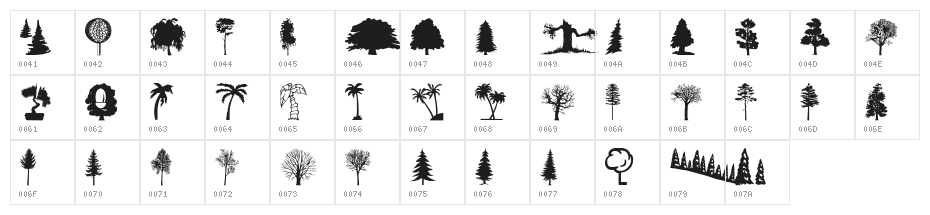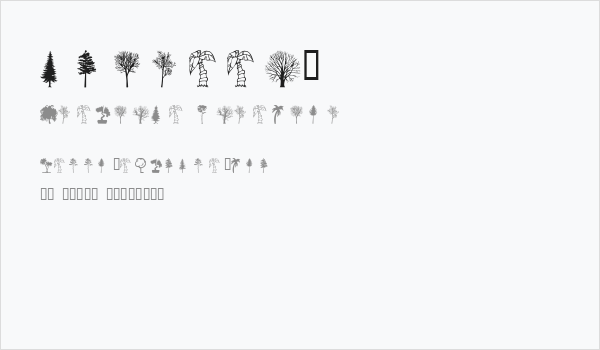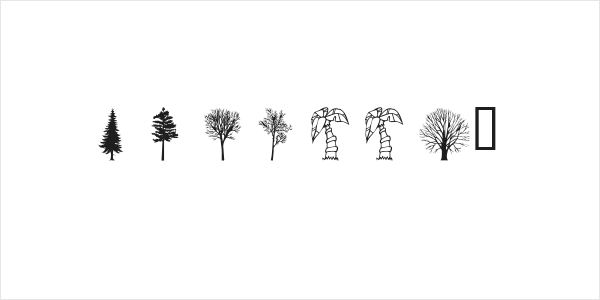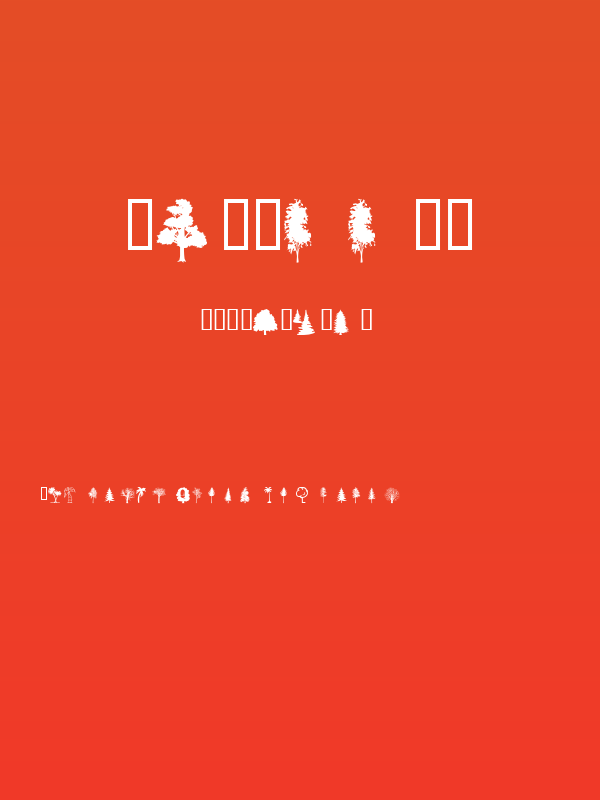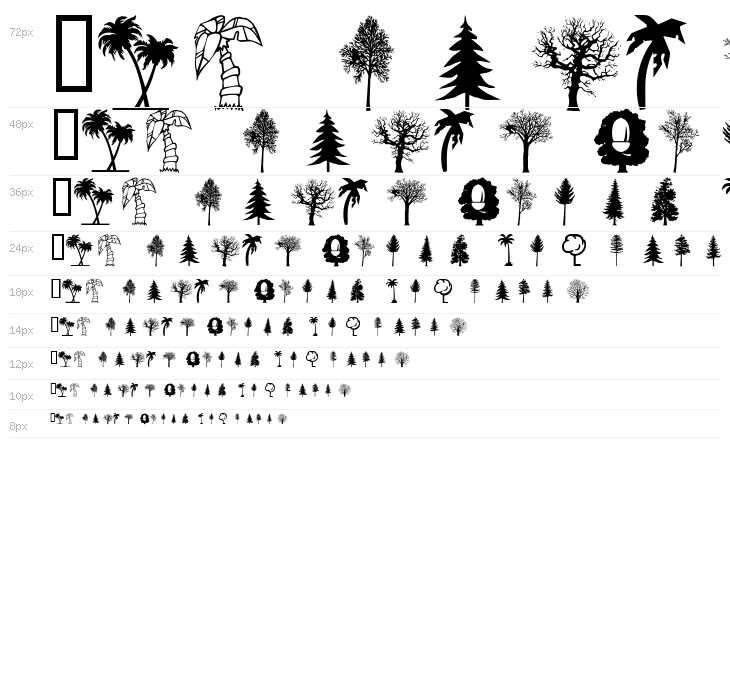
wmtrees1 Font
wmtrees1 Description
A decorative dingbat font featuring a variety of detailed tree silhouettes, including evergreens, palms, deciduous trees, and stylized landscape elements. Each character is represented by a unique tree or plant illustration, making it suitable for nature-themed designs.
| Overall Style | Decorative, Nature-inspired |
| Use Case | Logos, Posters, Illustrations, Themed graphics |
| Proposed Projects | Nature posters, eco-friendly branding, educational materials, landscape design presentations, environmental campaigns. |